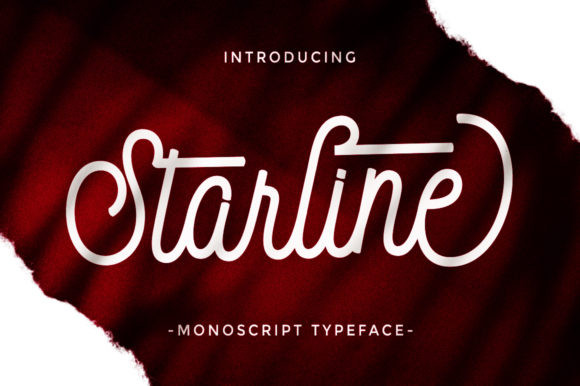
Starline Font
Starline simplifies elegance into one truly outstanding handwritten font. This font will look outstanding in any context, whether it’s being used on busy backgrounds or as a standalone headline!